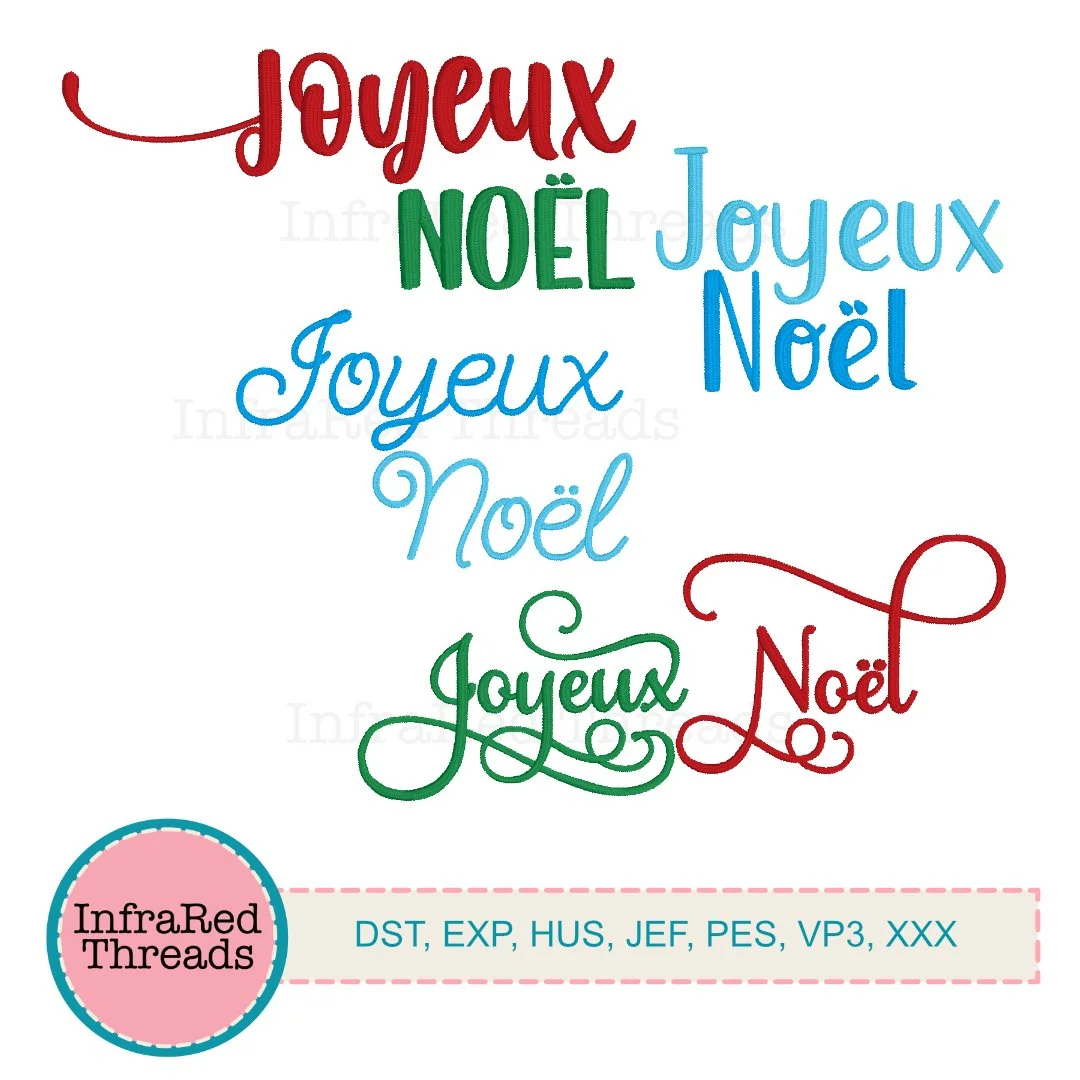
Joyeux Noël Embroidery Design – Multiple Font Styles in Assorted Sizes
Stitch a bit of French holiday magic with this Joyeux Noël embroidery design set, featuring the phrase “Joyeux Noël” in a variety of elegant and festive font styles. This versatile collection includes both classic and creative lettering options, perfect for adding a refined or whimsical touch to Christmas projects.